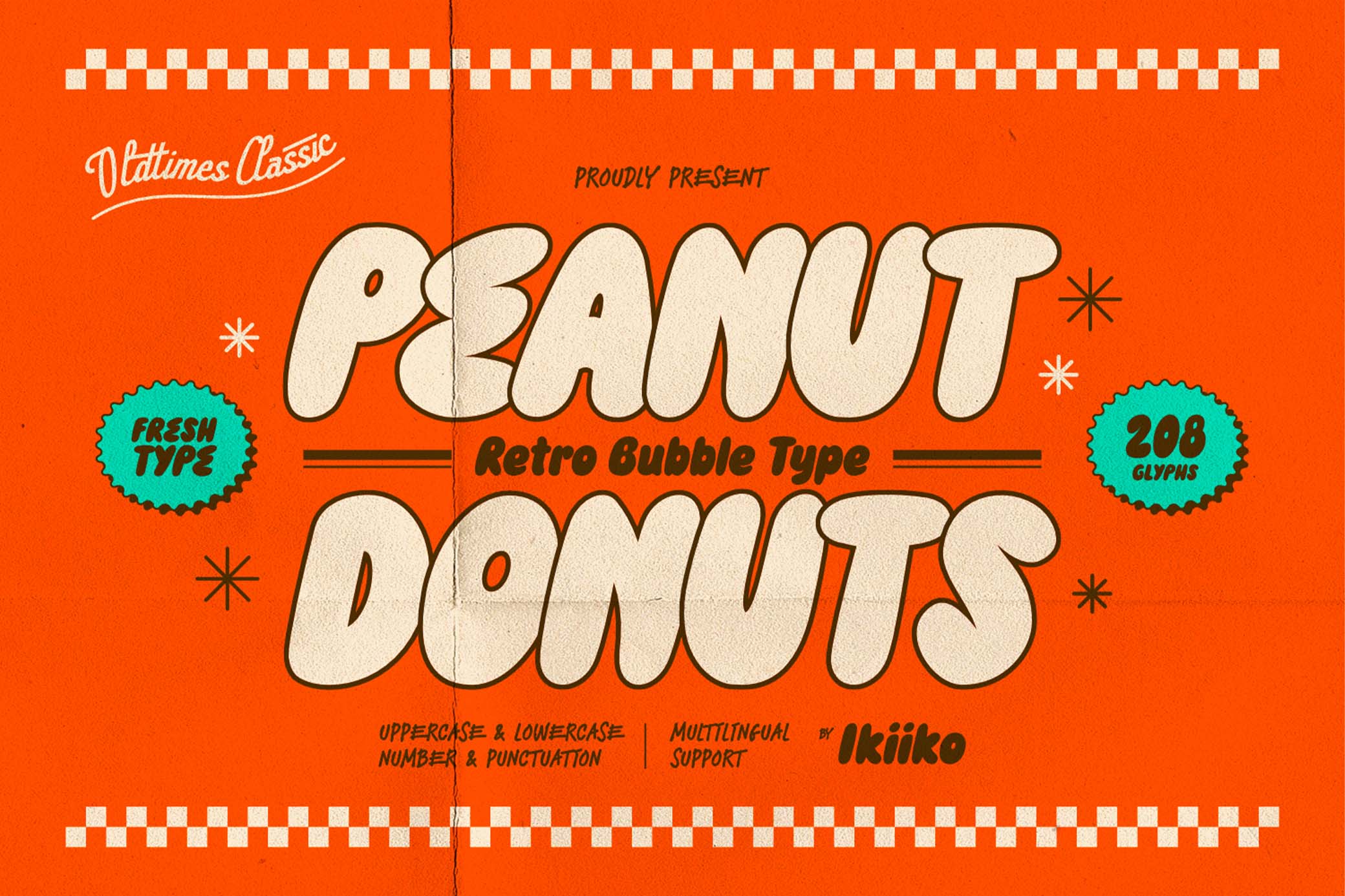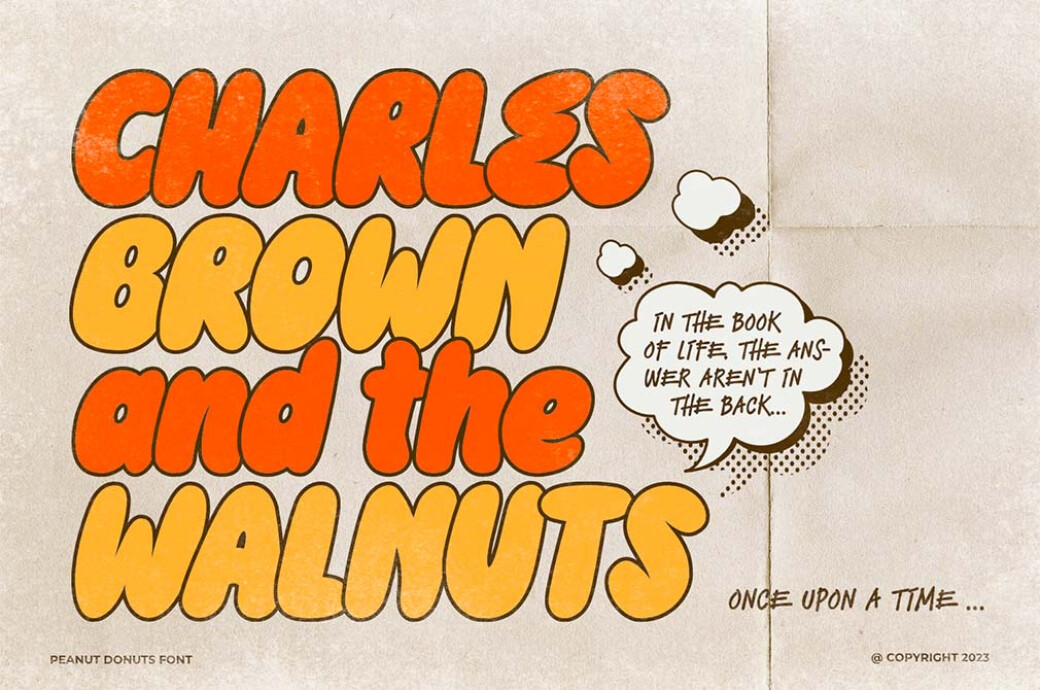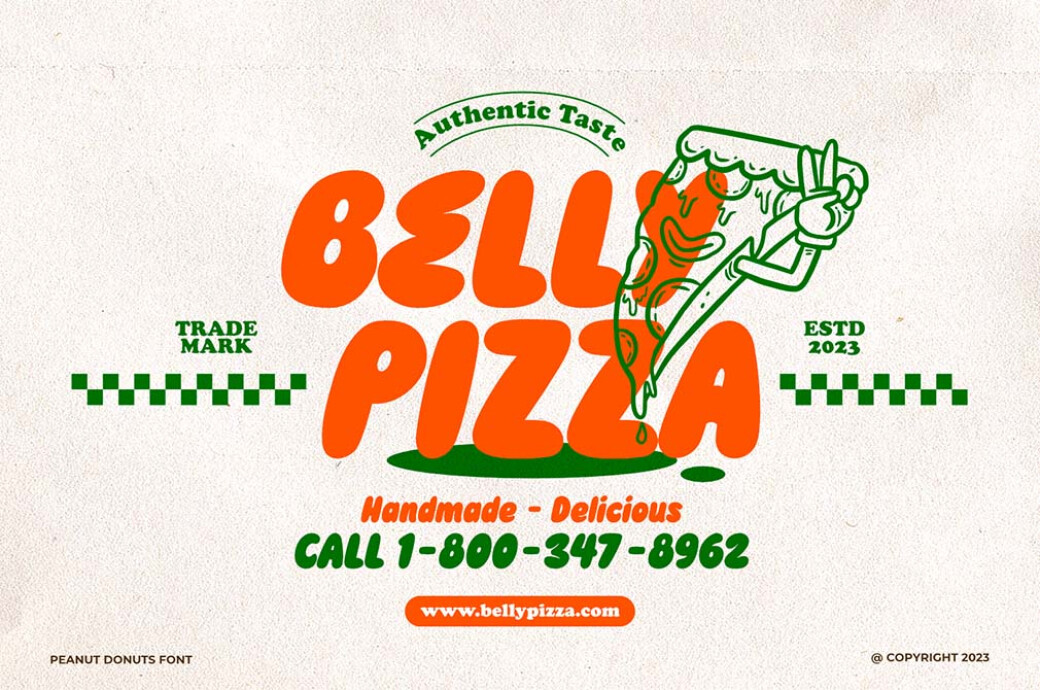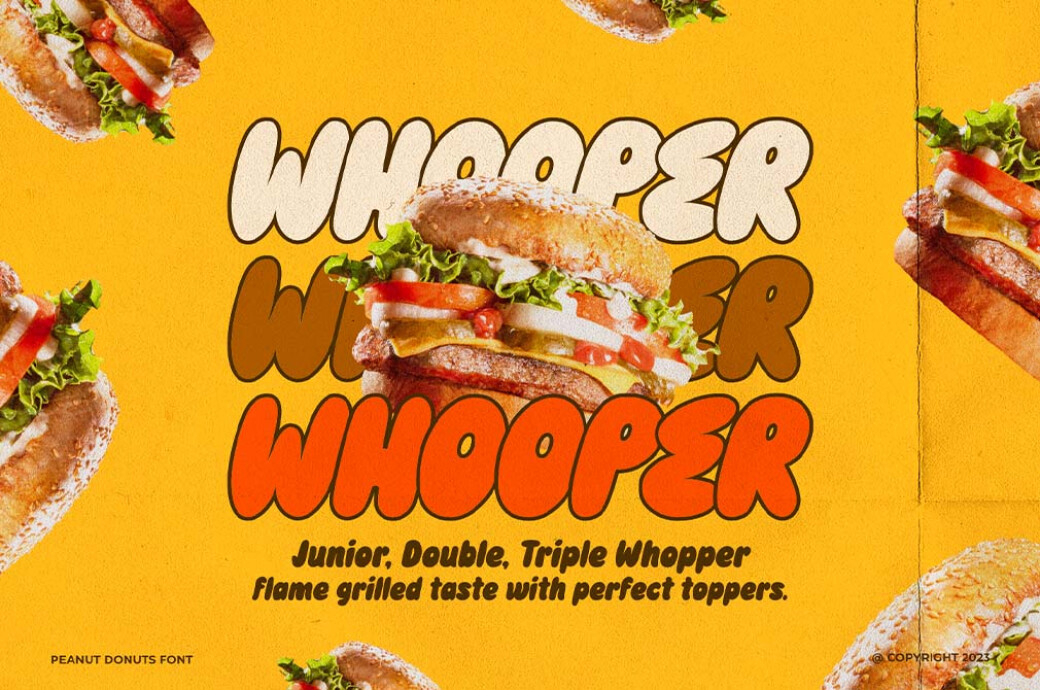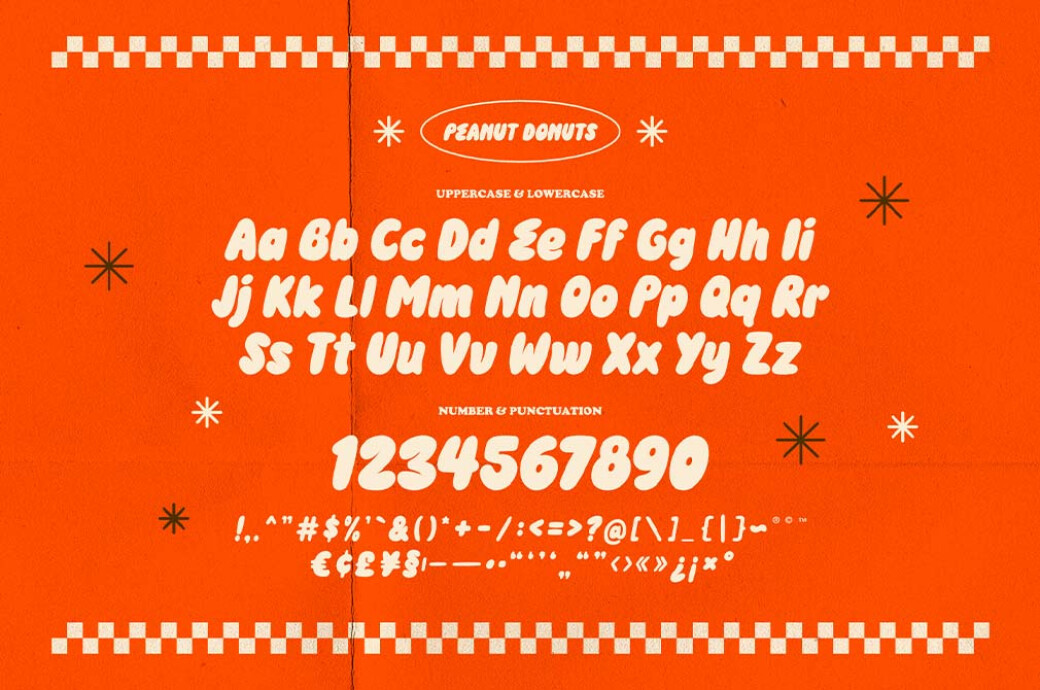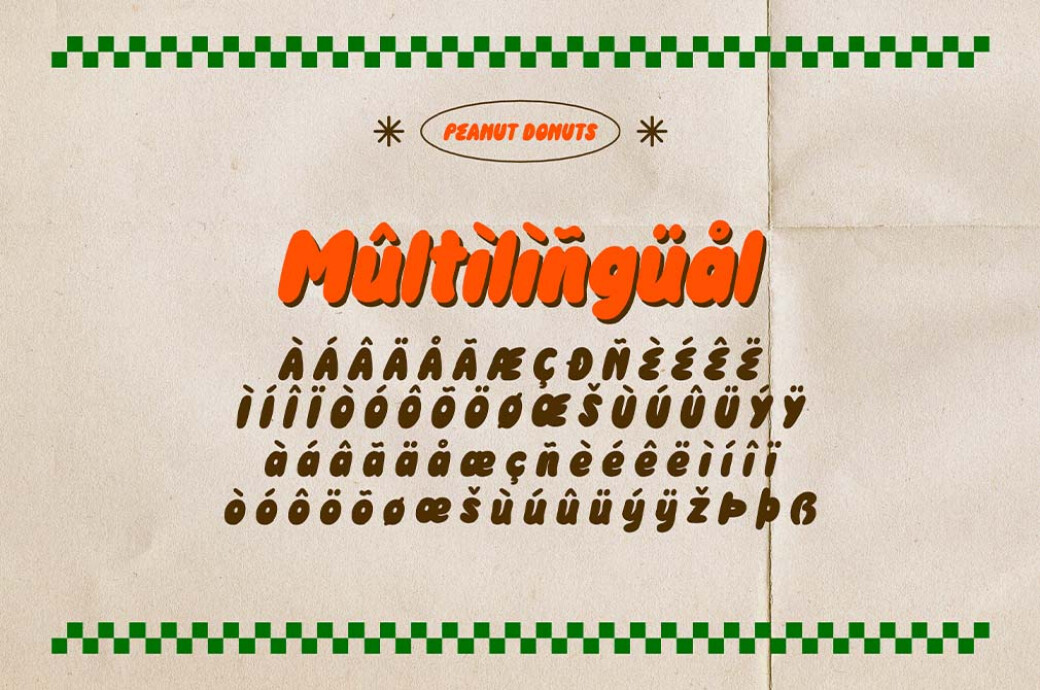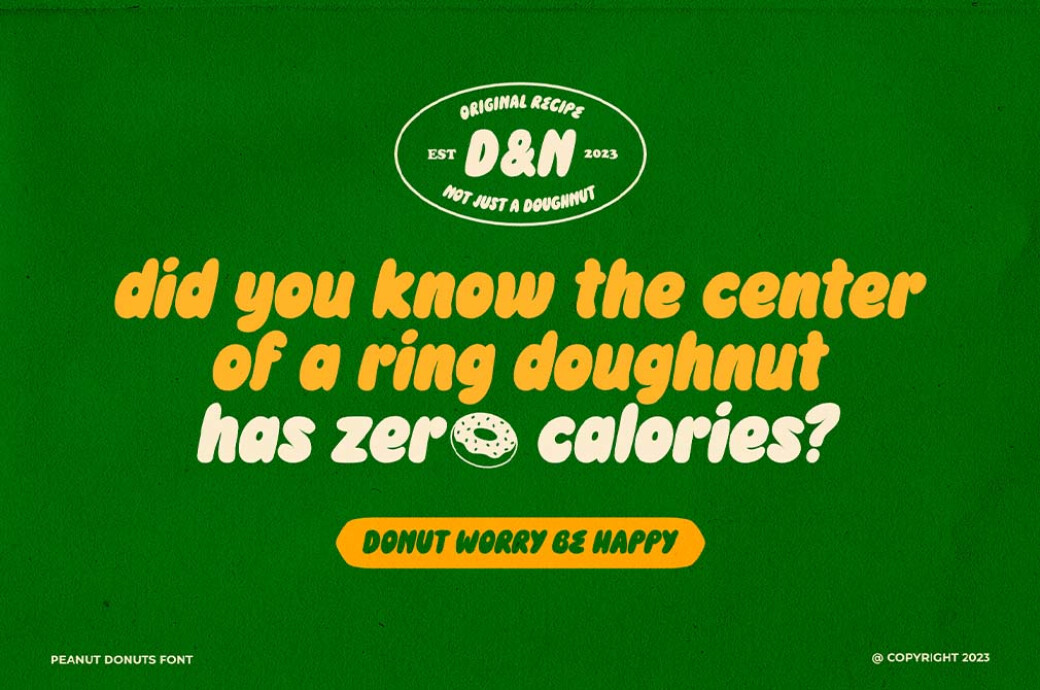
Peanut Donuts — Retro Bubble Font
Open your heart and designs to one of the typographic trends 2024: bubble fonts! Peanut Donuts is a perfect one to explore the latest tendencies.Peanut Donuts is perfect for vintage stuff, retro tees, children's books, comics, packaging, and beverage branding. In its characters, it merges retro shapes from food trucks with bubbly shapes. The font has a complete set of letters, including numbers, punctuation, and multilingual support.